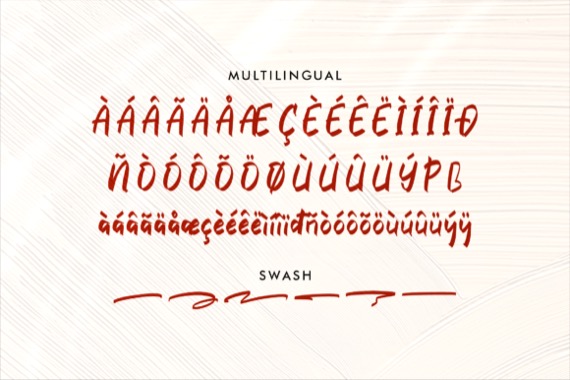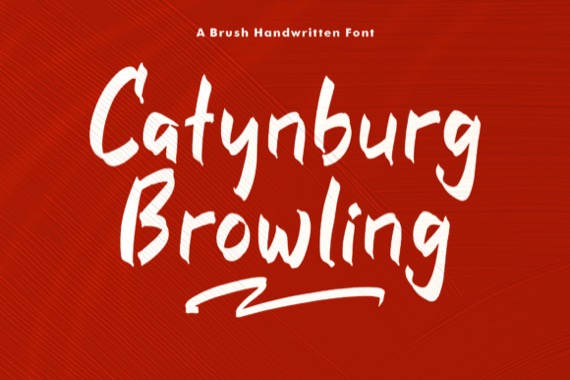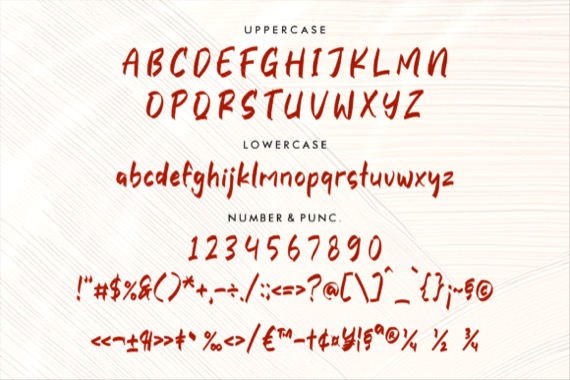
Catynburg Browling is an elegant and modern Brush Handwritten Font that was created and published by Perspectype Studio, suitable for any projects such as: logos, branding projects, homeware designs, product packaging, mugs, quotes, posters, shopping bags, t-shirts, book covers, name card, invitation cards, greeting cards, label, photography, watermark, special events, and all your other lovely projects that need a beautiful script taste.
Catynburg Browling Handwritten Font